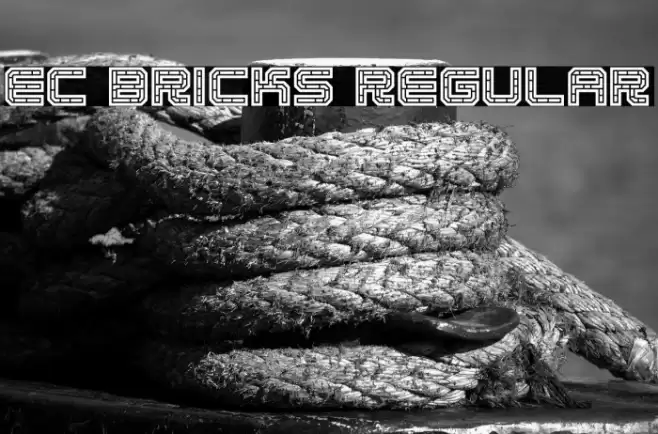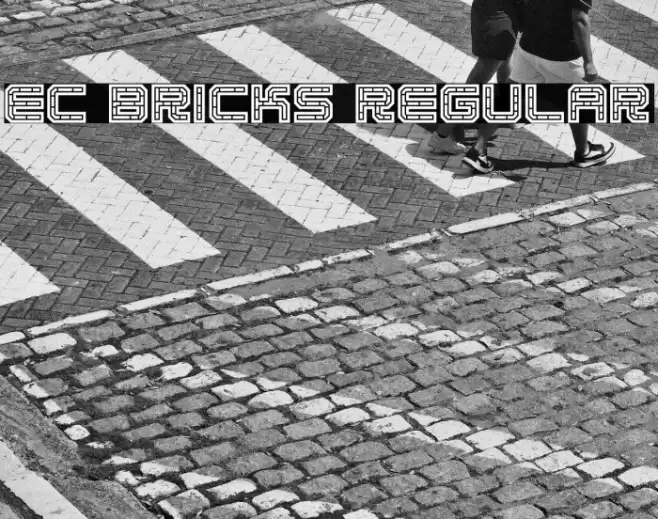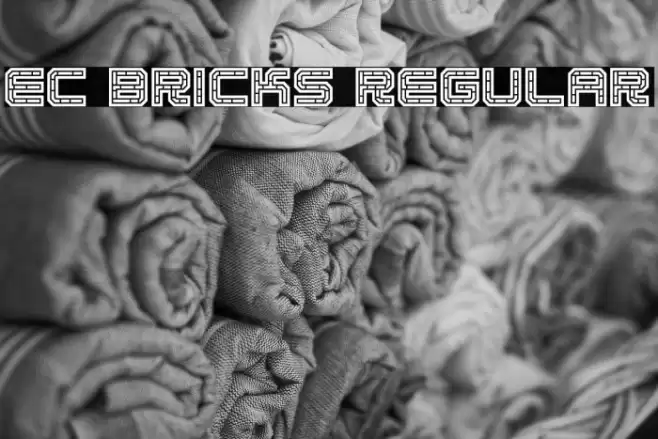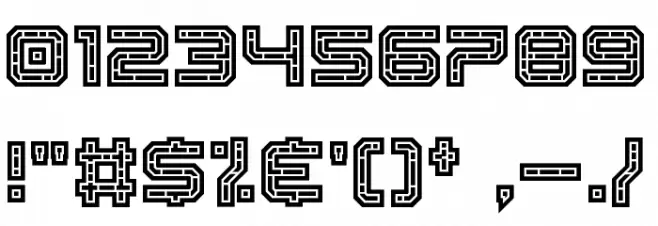
EC Bricks Regular Font
EC Bricks Regular Description
This font features a unique, block-like design reminiscent of interlocking bricks or a digital circuit board. Each character is constructed with a bold outline and internal lines that create a structured, geometric appearance. The uppercase and lowercase letters maintain a consistent style, with sharp angles and a uniform height that contribute to its cohesive look. The numerals and special characters follow the same design principles, ensuring a harmonious overall aesthetic. This font's distinct style makes it stand out, offering a modern and playful vibe suitable for creative projects.
A geometric, brick-like font with bold outlines and internal line details from Regular fonts.
- Proposed Projects: Ideal for tech-themed designs, video game graphics, posters, and branding that requires a modern, playful touch.